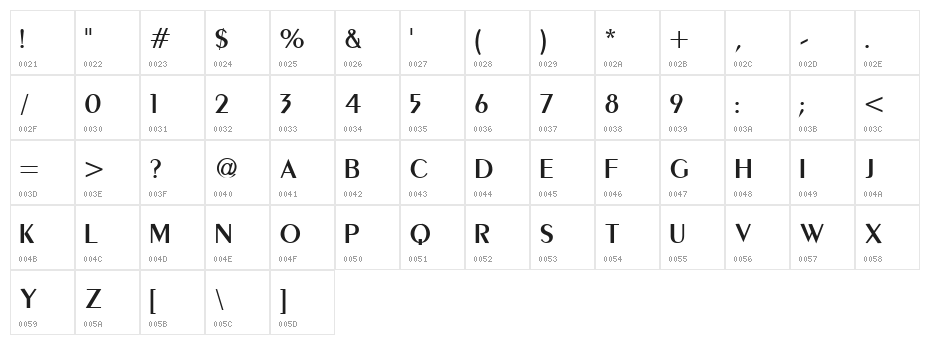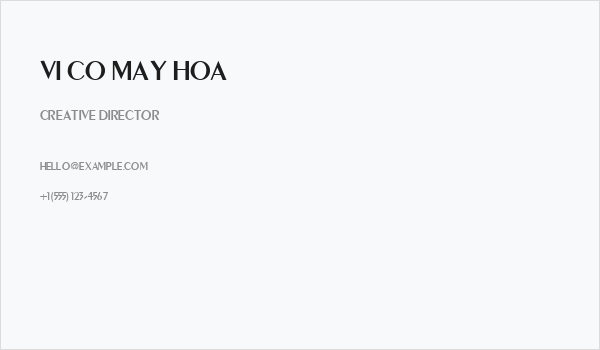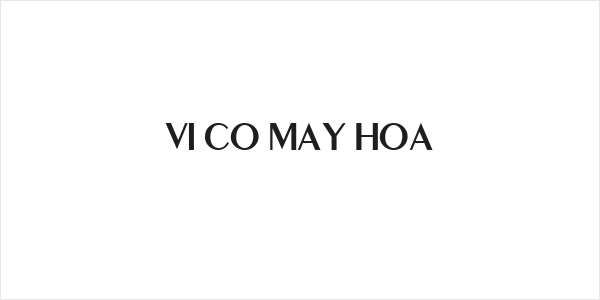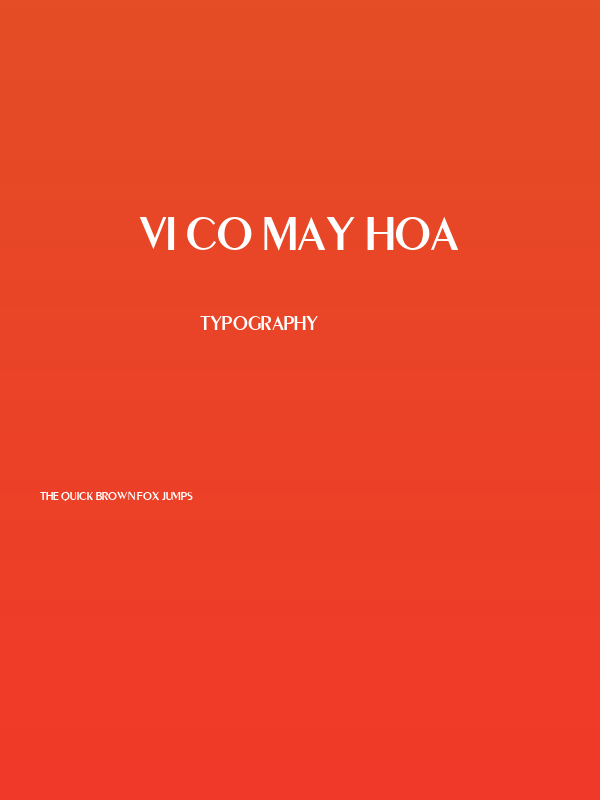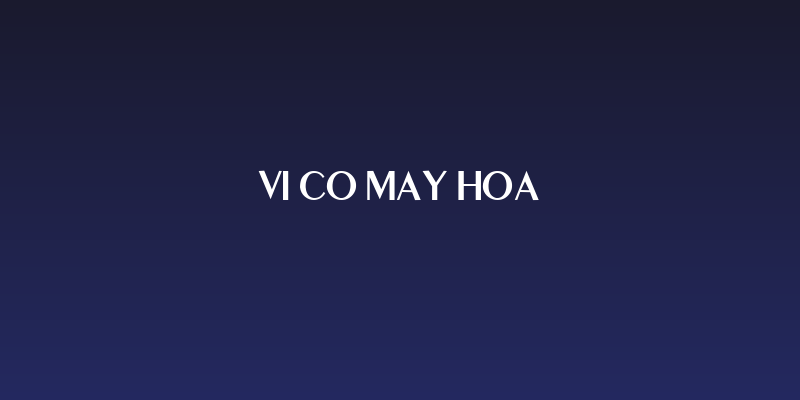
VI Co May Hoa Font
VI Co May Hoa Description
This font features a bold and striking design with sharp, clean lines and a modern aesthetic. The uppercase letters are distinct with a slight geometric influence, providing a sense of strength and authority. The numerals are equally bold, ensuring clarity and readability. Special characters are well-integrated, maintaining the overall cohesive look. The font's design is versatile, making it suitable for various applications where a strong visual impact is desired.
| Proposed Projects | Ideal for branding, headlines, posters, and any design requiring a strong visual presence. |